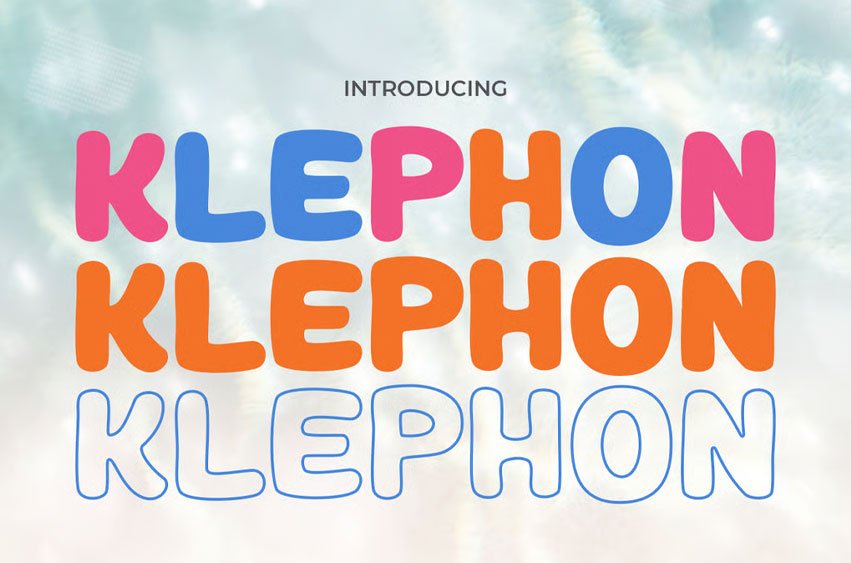
Klephon Font is a fun, rounded display font that embodies a lighthearted, joyful vibe. Its smooth curves and friendly forms make it perfect for bright, engaging designs that need to communicate positivity. Klephon is the go-to choice for designers looking to create a friendly, approachable atmosphere in their projects, with its bubbly letterforms bringing cheer to any layout.
Market Applications:
- Children’s Products & Toys: The playful and smooth nature of Klephon makes it ideal for children’s packaging, toys, and educational materials.
- Advertising & Marketing Campaigns: Great for bold headlines in playful or youth-oriented advertisements that require a modern, fun twist.
- Social Media Graphics: Klephon’s friendly shapes make it a perfect match for engaging social media posts that need to capture attention with a positive vibe.
- Event Posters & Invitations: Use it for invitations or posters that focus on fun, such as birthday parties, family events, or any casual gathering.
- Logos for Lifestyle Brands: Klephon’s lighthearted style works perfectly for lifestyle brands that want to project a friendly, approachable image.